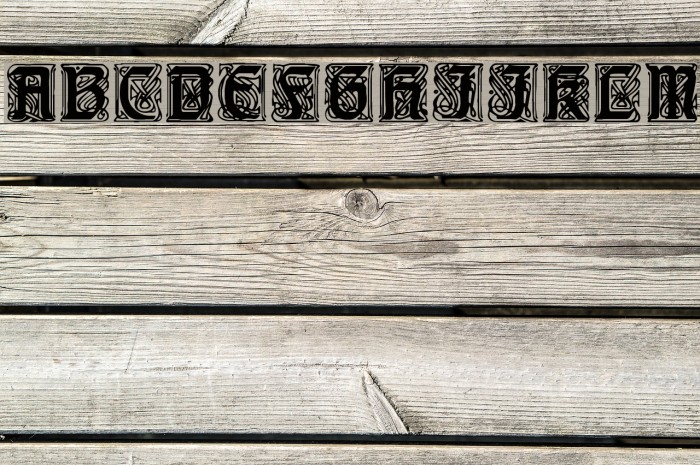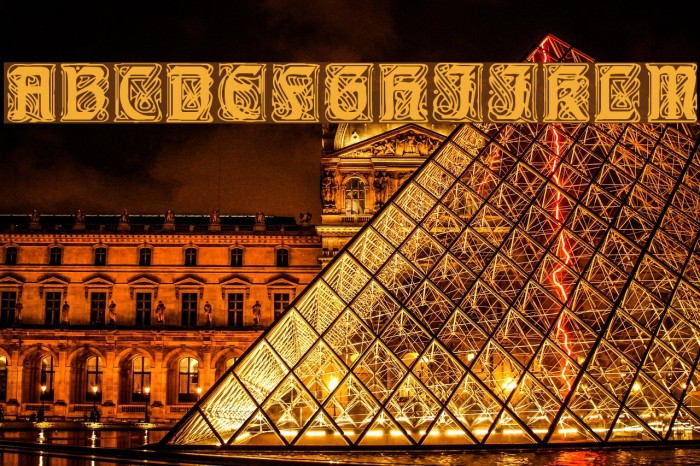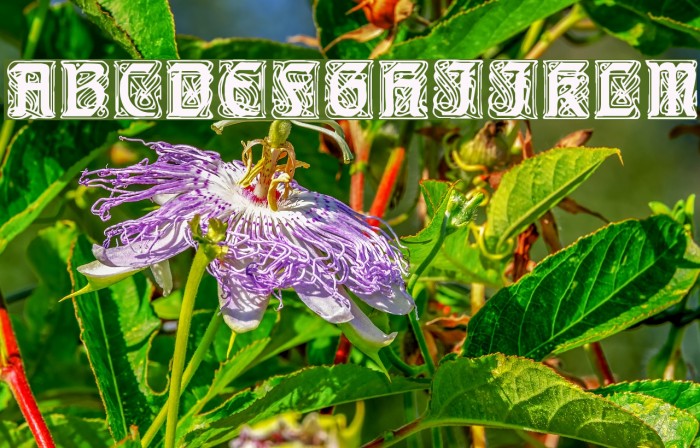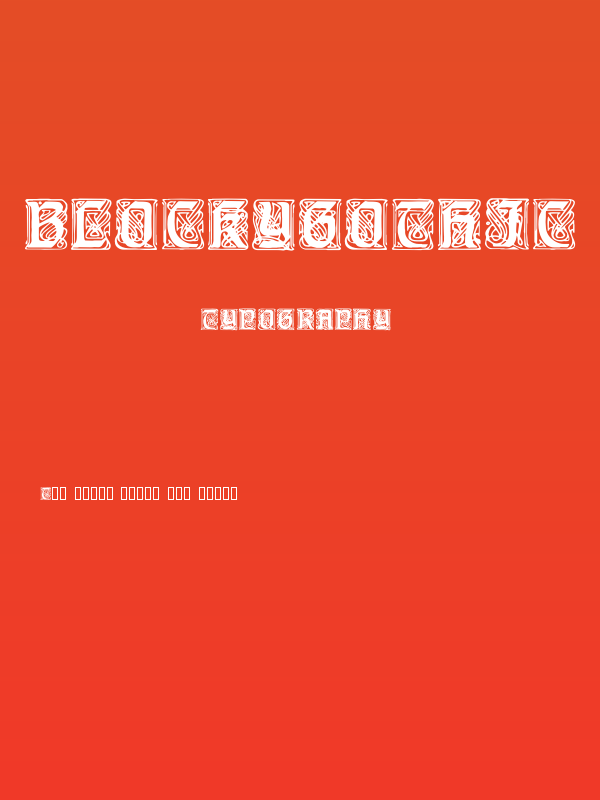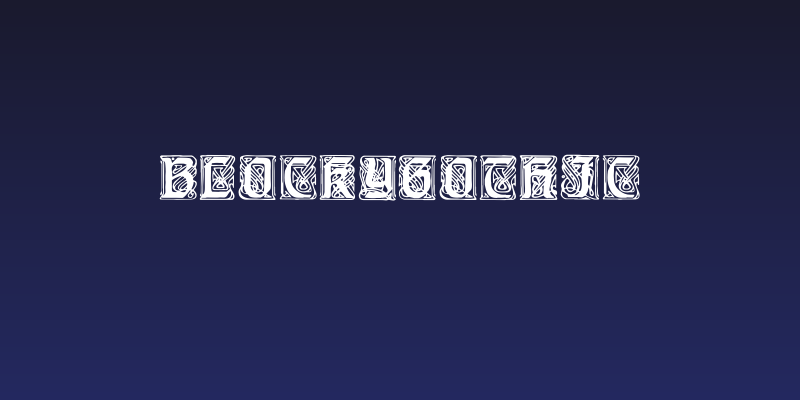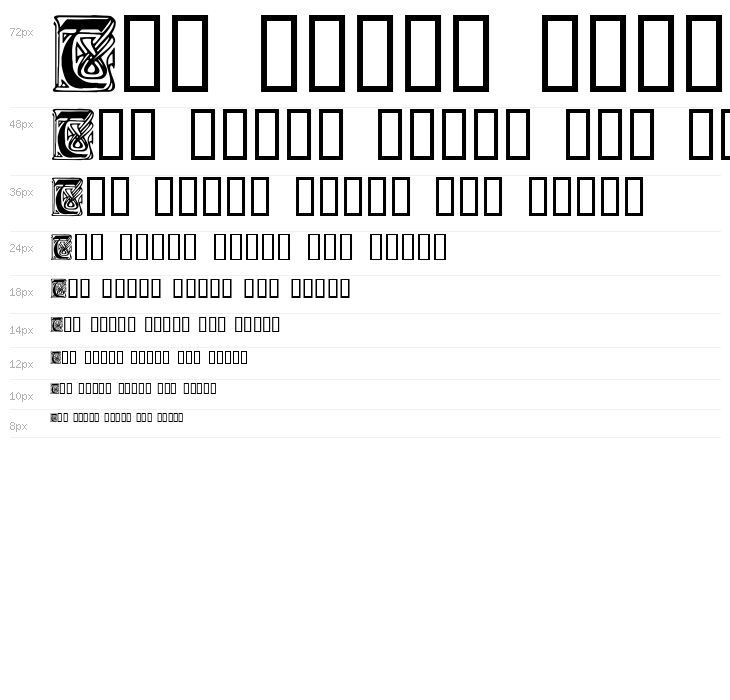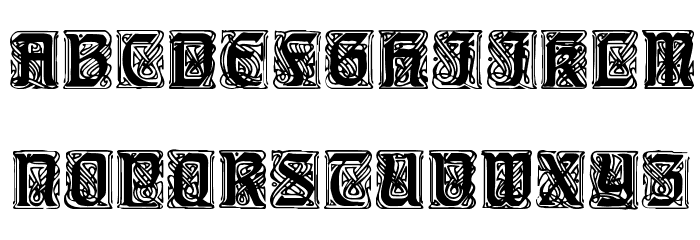
BlockyGothic Font
BlockyGothic Description
This font features a highly decorative and intricate design, reminiscent of Gothic architecture with a modern twist. Each character is enclosed in a square frame, filled with elaborate swirls and patterns that create a sense of depth and complexity. The bold, blocky structure of the letters contrasts with the delicate internal detailing, making it both eye-catching and unique. The uppercase and lowercase letters maintain a consistent style, ensuring uniformity across different text sizes. The numbers and special characters are equally ornate, ensuring a cohesive look throughout any text. This font is perfect for projects that require a dramatic and artistic flair.
| Proposed Projects | Ideal for use in posters, album covers, book titles, and branding that requires a dramatic and artistic touch. |